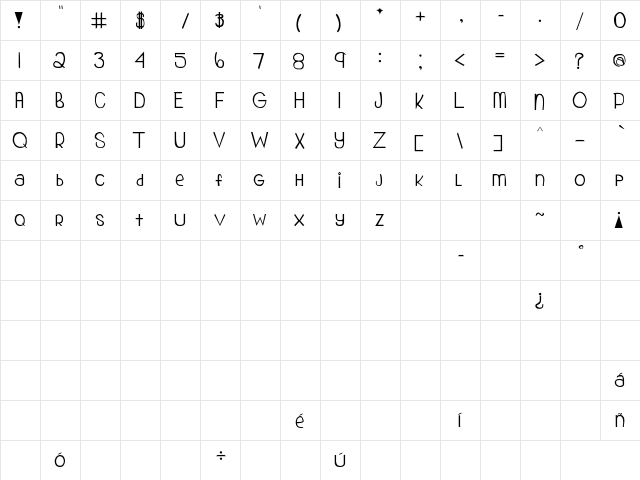
My Organization Regular Font Preview
My Organization Regular
My Organization Regular Font Details
Design Context for My Organization Typeface
My Organization takes a measured approach to typography — its balanced proportions and neutral character make it a reliable workhorse for both digital and print work.